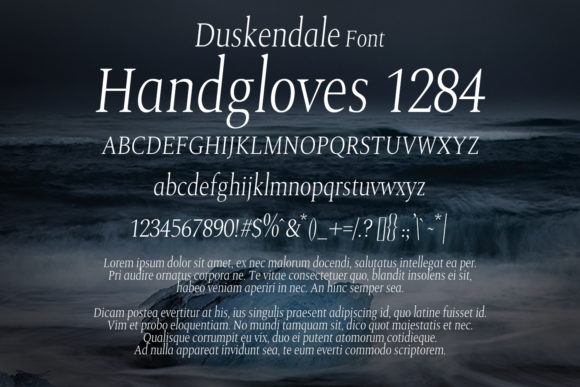
Duskendale Font: Elevate Your Designs with a Touch of Minimalist Elegance
In the world of typography, a font can make or break a design. It’s the foundation upon which the entire visual identity is built. For designers and crafters looking to add a dash of sophistication and minimalism to their projects, the Duskendale Font is an excellent choice. This stunning serif font is designed to bring a touch of elegance and refinement to any design, making it stand out in a crowded creative landscape.
What is Duskendale Font?
Duskendale is a minimal and neat serif font that exudes simplicity and clarity. Its clean lines, subtle curves, and balanced proportions make it an incredibly versatile typeface. Whether you’re working on a branding project, a website, a print design, or a digital product, Duskendale can easily be matched to an incredibly large set of projects. Its neutral yet distinctive style allows it to seamlessly integrate with various design aesthetics, making it a valuable addition to any designer’s toolkit.
Key Features of Duskendale Font
- Minimalist Design: Duskendale boasts a minimalist design that focuses on simplicity and clarity. Its clean and uncluttered appearance makes it perfect for designs that require a subtle yet sophisticated touch.
- Serif Elegance: The font features elegant serifs that add a touch of refinement and luxury to any design. The serifs are carefully crafted to provide a sense of continuity and flow.
- Versatility: Duskendale is designed to be versatile, making it suitable for a wide range of projects, from digital products to print materials.
- Easy to Read: The font’s clear and balanced design ensures excellent readability, making it perfect for body text, headings, and titles.
How to Use Duskendale Font in Your Designs
Integrating Duskendale into your design workflow is straightforward. Here are a few ideas to get you started:
- Branding and Logo Design: Use Duskendale to create a sophisticated brand identity that exudes elegance and refinement.
- Web Design: Pair Duskendale with a clean and modern sans-serif font for a harmonious and professional-looking website.
- Print Design: Add a touch of luxury to your print materials, such as brochures, flyers, and business cards, with Duskendale’s elegant serif design.
- Digital Products: Use Duskendale to create visually appealing digital products, such as e-books, presentations, and social media graphics.
Why Choose Duskendale Font?
With so many fonts available, why choose Duskendale? Here are a few compelling reasons:
- Unique yet Versatile: Duskendale offers a distinctive design that sets it apart from other serif fonts, yet its versatility ensures it can be used in a wide range of projects.
- High-Quality Design: The font is carefully crafted to provide a high-quality design that is both elegant and refined.
- Easy to Use: Duskendale is easy to integrate into your design workflow, making it a convenient choice for designers and crafters.
In conclusion, Duskendale Font is an excellent choice for designers and crafters looking to add a touch of minimalist elegance to their projects. Its clean design, elegant serifs, and versatility make it a valuable addition to any designer’s toolkit. Whether you’re working on a branding project, a website, or a digital product, Duskendale is sure to elevate your designs and make them stand out. So, add it to your creative ideas and notice how it makes them shine!